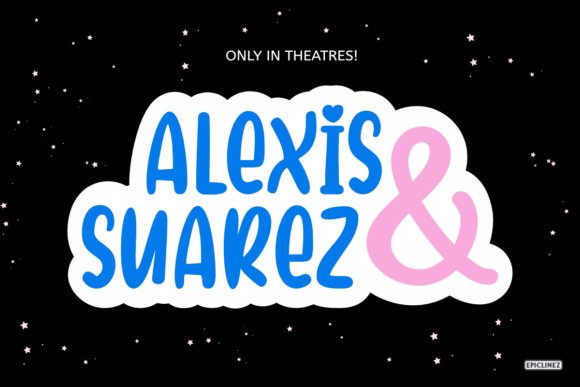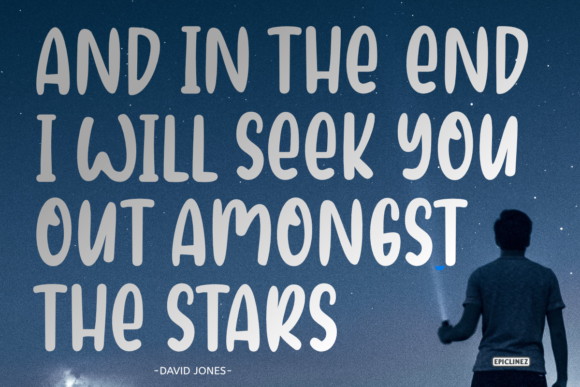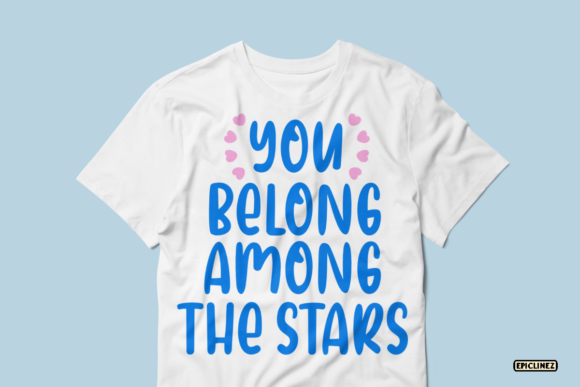
Introduction to Love in Space Font
Love In Space is a cute and lovable handwritten font.
It is suitable for your crafting projects, but also for logos, quotes and so much more .
Why Choose Love in Space Font?
Love in Space Font offers exceptional quality and versatility, making it a valuable addition to your design toolkit. Whether you’re creating for personal projects or commercial use, Love in Space Font delivers professional results.